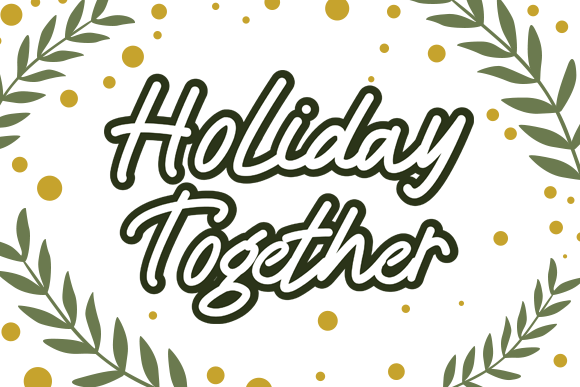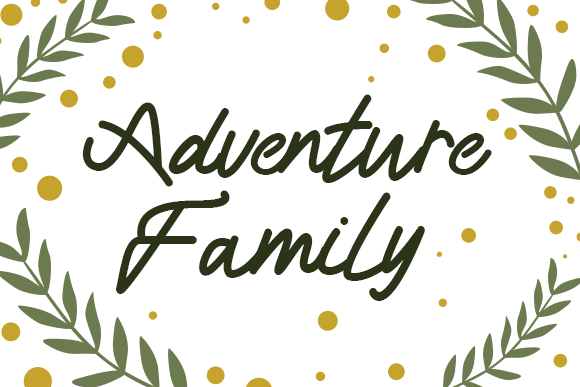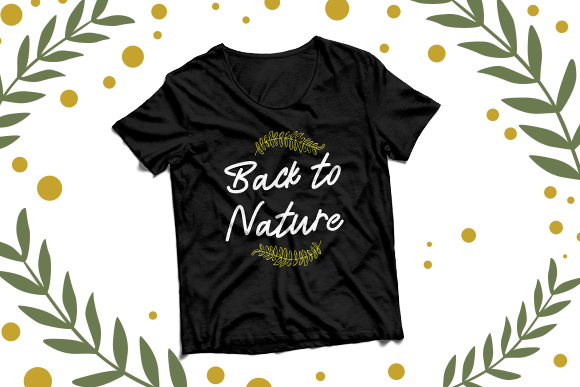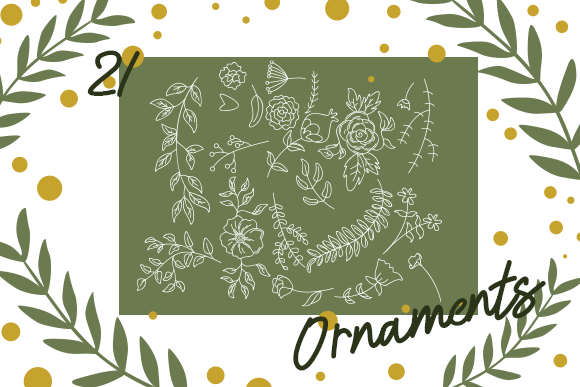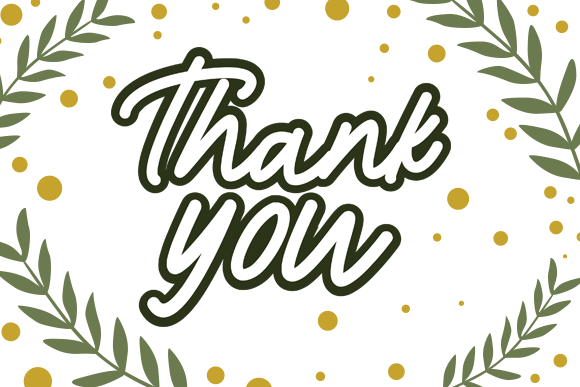
Bushenfil Font
About Bushenfil Font
Not only for nature-lovers: Bushenfil is a beautiful, smooth, delicious handwritten font with an authentic twist and natural elements. Get inspired by its adorable and playful charm.